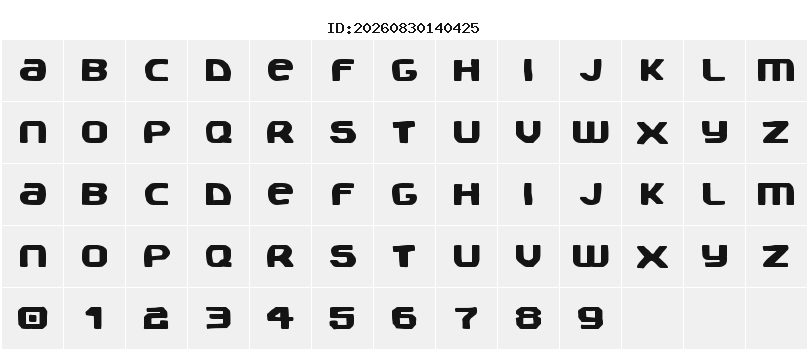
• Font Name: The Toy Castle
• Full Font Name: The Toy Castle
• Designer: Woodcutter Manero
About The Toy Castle.ttf
The Toy Castle.ttf is a modern, elegant sans-serif font designed for ultimate readability and visual harmony. Perfect for branding, headlines, web design, and print materials.